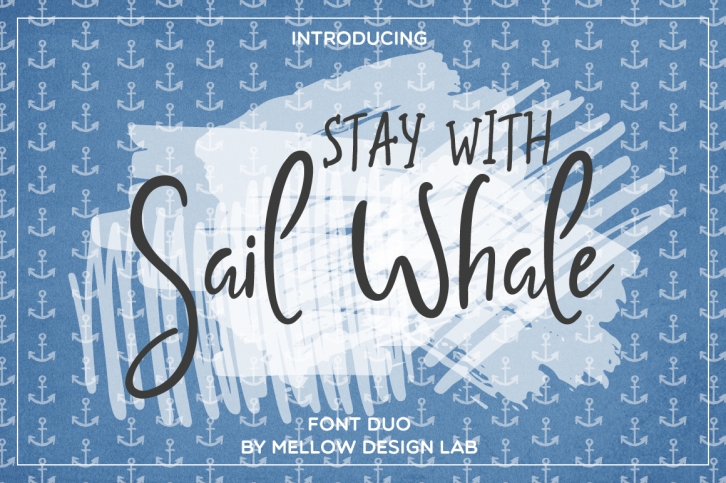
Sail Whale [Font Duo] Download
Sail Whale [ Duo] is a beautiful font that was designed by Mellow Design Lab. It's a great choice for designers and creatives who need such a font. It was released on August 15, 2016 and the file size is 7.99 MB. Sail Whale [ Duo] may give a more youthful, expressive and casual look to your project. It is a very beautiful, refined, elegant, and high-quality font.